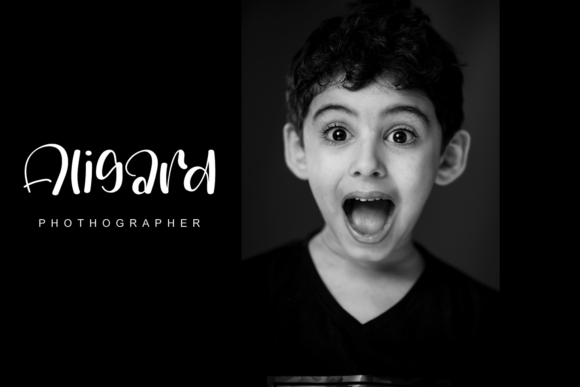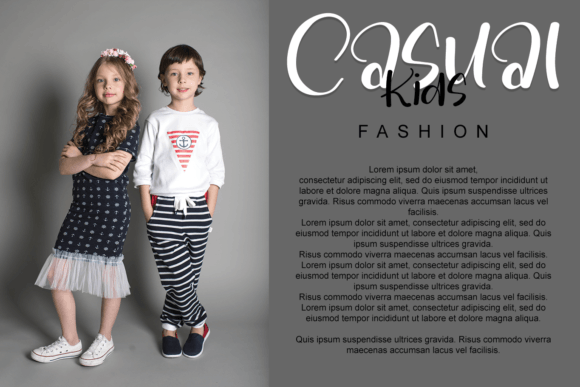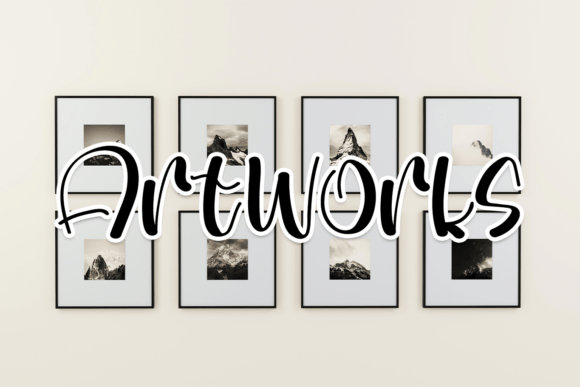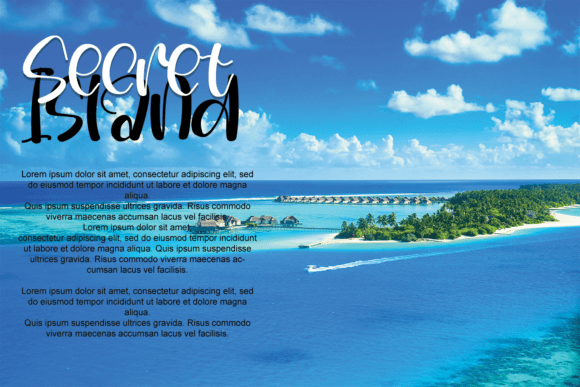
The Ultimate Guide to Hello Beach Font: A Fun and Quirky Handwritten Display Font
Ah, the elusive perfect font. You know, that one font that makes your design project go from meh to mesmerizing. I recall a particularly frustrating design session where I was working on a beach-themed craft project, and I just couldn’t find the right font to capture that carefree, summer vibe. That’s when I stumbled upon Hello Beach Font, and let me tell you, it was love at first sight! ✨
Hello Beach Font: The Review
Hello Beach is a fun and quirky handwritten display font that’s perfect for adding a personal touch to your creative projects. Here’s what I love about it:
- ✨ Unique and playful lettering style that’s sure to grab attention
- ✅ Highly legible, even at larger font sizes
- ✅ Works beautifully for titles, headings, and short paragraphs
- ✅ Perfect for beach-themed, summer-inspired, or playful designs
Now, I’m not going to sugarcoat it – every font has its quirks. Here are a few things to keep in mind:
- ⚠️ May not be suitable for body text or longer paragraphs due to its display nature
- 🤔 Limited availability of stylistic alternates, but still offers some fun OpenType features
Hello Beach Font offers some exciting OpenType features and glyphs that can elevate your design:
- Stylistic alternates: Experiment with different letterforms to add more personality to your text
- Glyphs: Use special characters, such as ligatures or ornaments, to add visual interest
The Designer Inspiration Behind Hello Beach Font
While I couldn’t find any direct information on the designer behind Hello Beach Font, I like to imagine that it was created by a beach-loving designer who wanted to capture the carefree spirit of summer. Perhaps they drew inspiration from handwritten beach signs, surfboards, or tropical flowers. Whatever the inspiration, Hello Beach Font is sure to bring a smile to your face and a touch of playfulness to your designs.
| Font Name | Hello Beach Font |
| Author | Behind the ink |
| What type of projects is Hello Beach Font best suited for? | Hello Beach Font is perfect for beach-themed, summer-inspired, or playful designs, such as craft projects, social media graphics, or party invitations. |